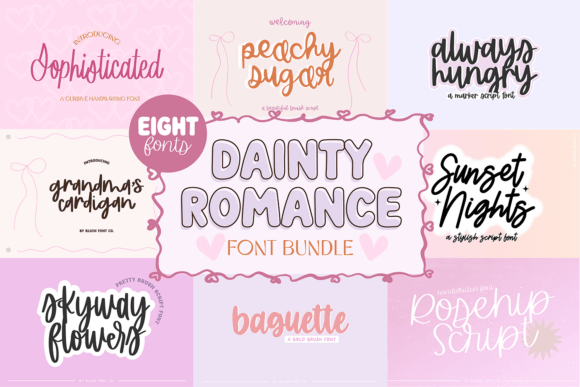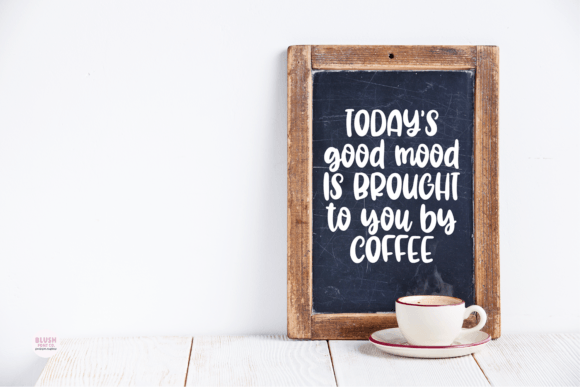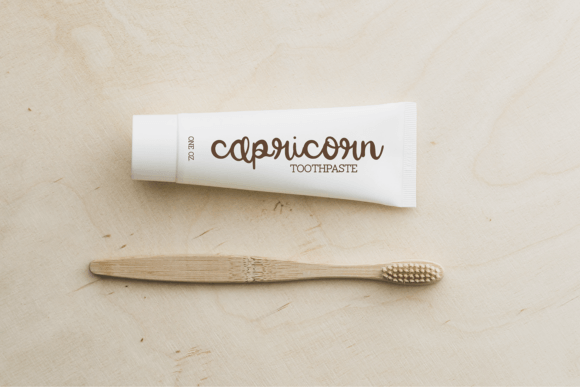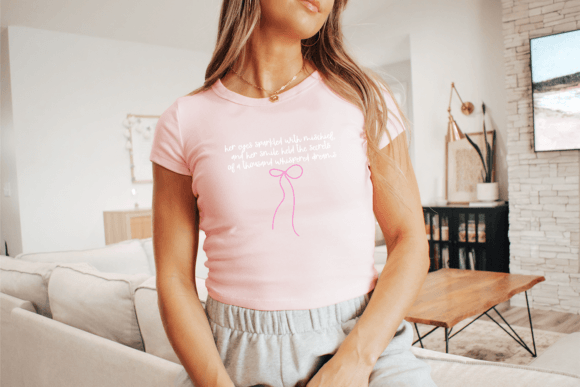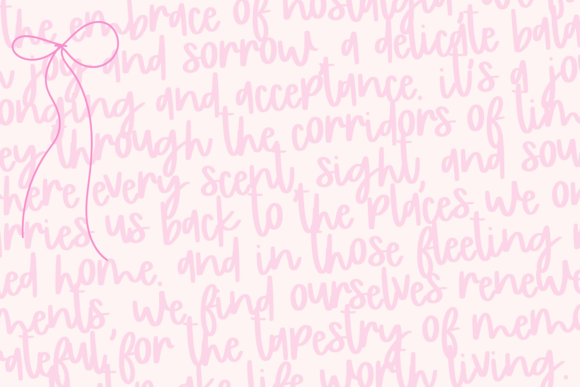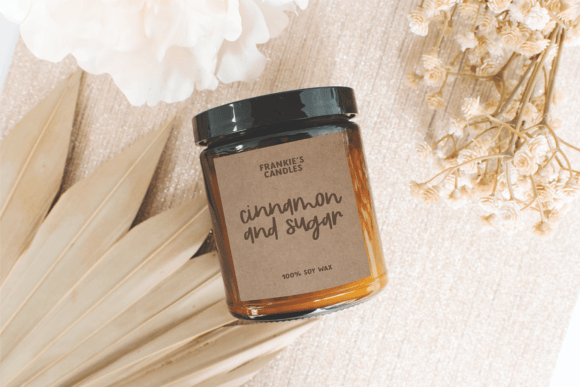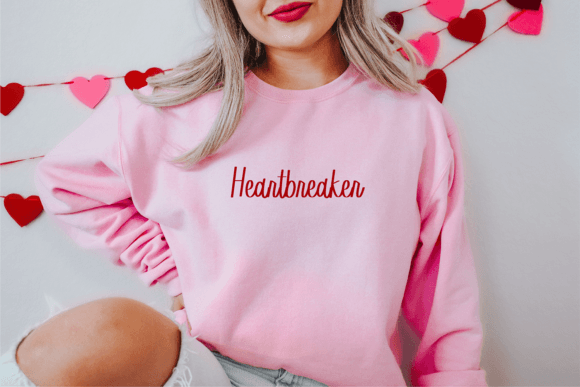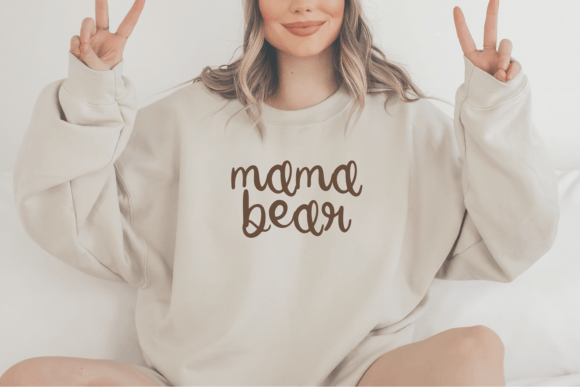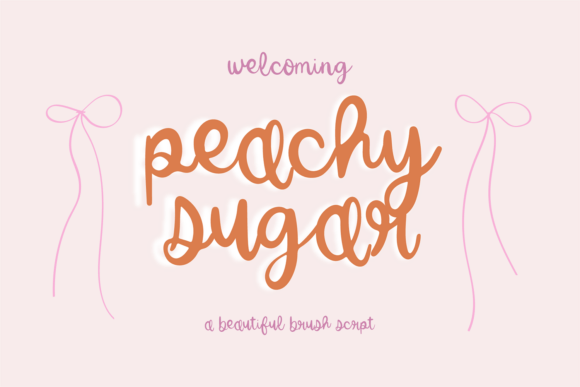
Dainty Romance Script Bundle Font
The Dainty Romance Font Bundle offers eight enchanting fonts that exude elegance, charm, and creativity. With a mix of script, handwriting, and display styles, this collection is perfect for adding a personal and whimsical touch to your projects. From romantic wedding designs to playful invitations and branding, this versatile bundle will inspire endless creativity with its soft and artistic aesthetics.